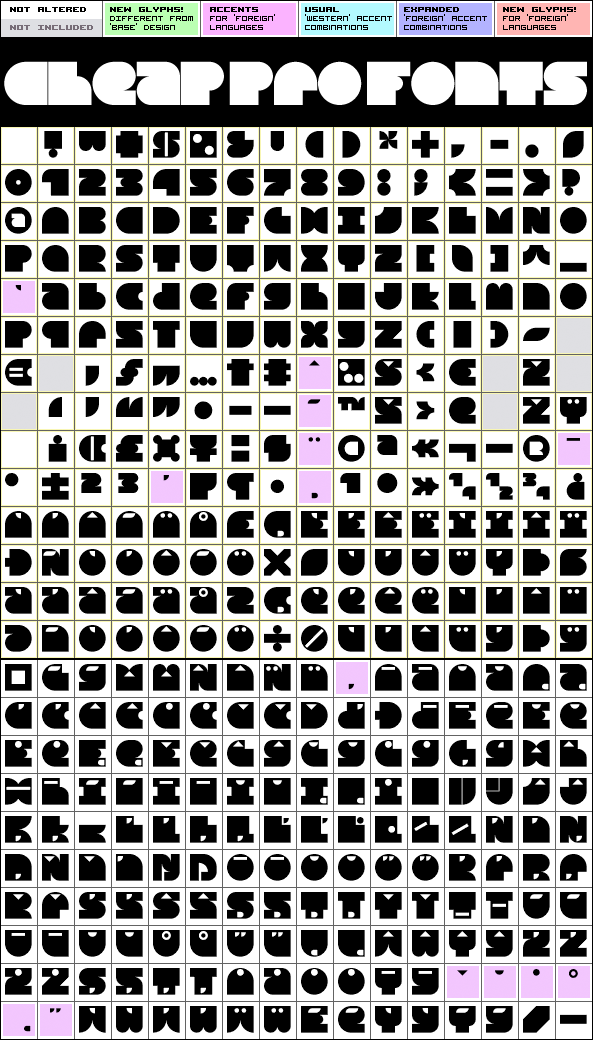
Bloco Pro
Bloco Pro by Roger S. Nelsson
Highlights:
377 glyphs!
NO kernpairs!
font is monospaced
Description:
Geometric elements combined to create solid square letters. Makes for interesting blocks of text - and headings. All the diacritical letters have the diacritic embedded into the base letter, so EVERY glyph in this font is within a square. Start stacking your text! :)
Bloco Pro is a professionally reworked font that contains an extended character set for setting text in 65 languages requiring more than the basic A-Z!